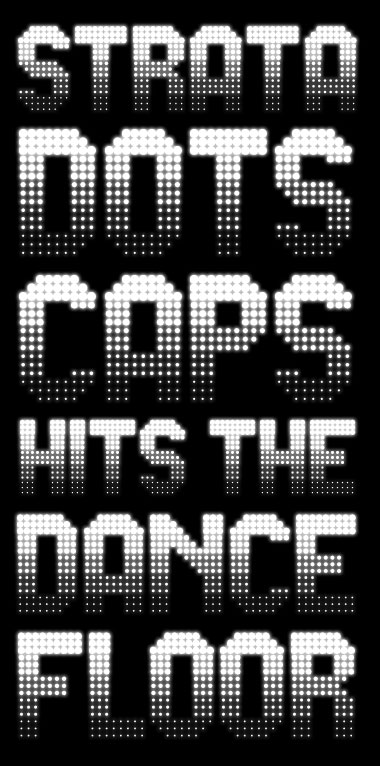
• I finally got around to upgrading Strata Dots. I wasn't very happy with the lowercase letters, which could not show a full gradation (unless they had ascenders). And I felt that many characters could be improved, too. The result is Strata Dots Caps, which boasts a full set of Basic Latin and More Latin characters.
Gasp! I used a Photoshop filter on this sample image. ;-D
Photoshop filters? Ricardo, you know that is gateway to further vices. Once you try one recreationally, it can just suck you into a downward spiral. Still, admitting there is a problem is the first step. At this point, it's far too late for me, but for you there is still hope.
;-)
Laugh-out-loud funny, Gene! The second step: Hello, I'm Ricardo, and I'm a Photoshop Filterholic. ;-)
The cowardly font troll strikes agin! Take no notice SP ... it's some talentless nerd who can only express their jealousy in this way.
Hope my 10 is the first of many :)
Great work, well promoted in the sample. It's another 10.